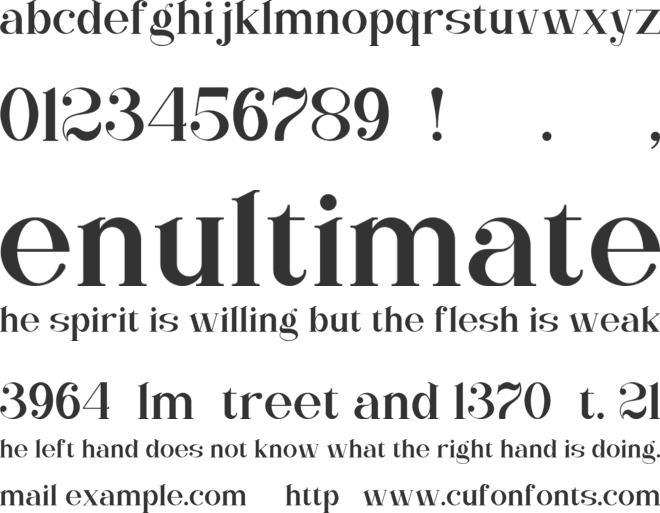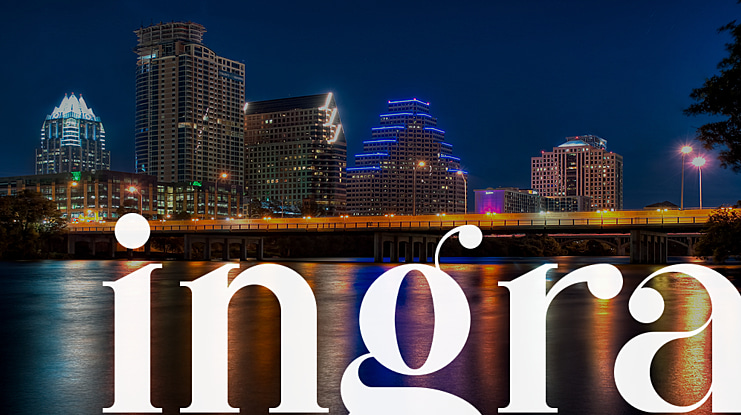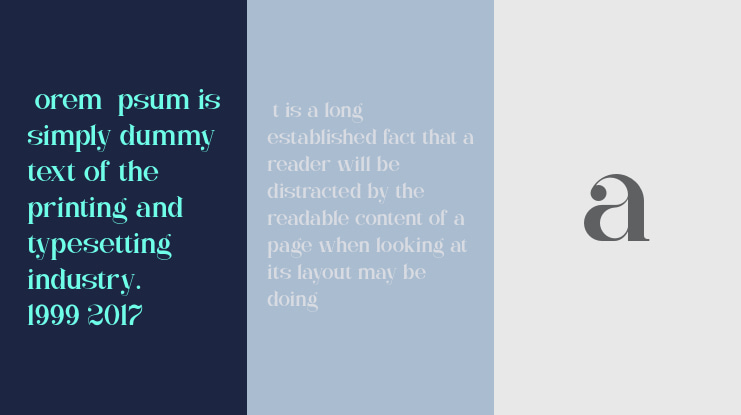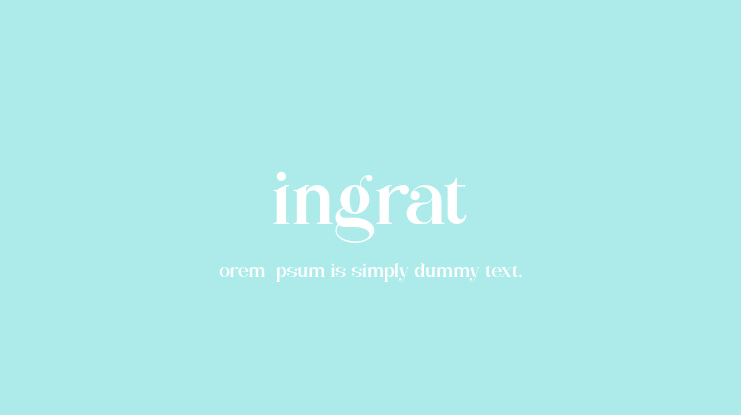
Ningrat Font
Ningrat inspired from from the 60s with a classy and modern look. Ningrat is a mix of classic with modern serif font family. It’s weight cover regular. The black weight of Ningrat Display font offers very strong impression. As a great choice for title and headers, it pairs well with most of the popular sans serif fonts for body text.